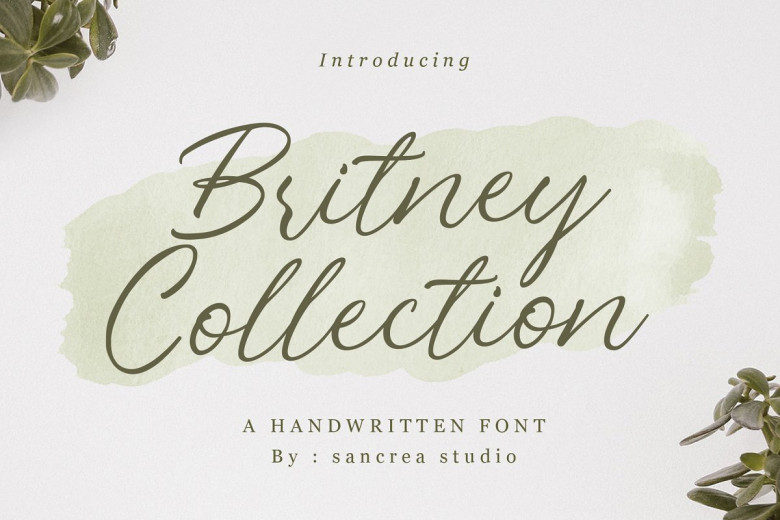
Britney Collection Handwritten Script Font
Britney Collection Handwritten Font is a beautiful font with modern script style. For those of you who are needing a touch of elegance and modernity for your designs, this font was created for you! It’s perfect for adding a graceful feel to any design project.
This font is perfect for branding projects, logo, wedding designs, social media posts, advertisements, product packaging, product designs, label, photography, watermark, invitation, stationery and any projects.